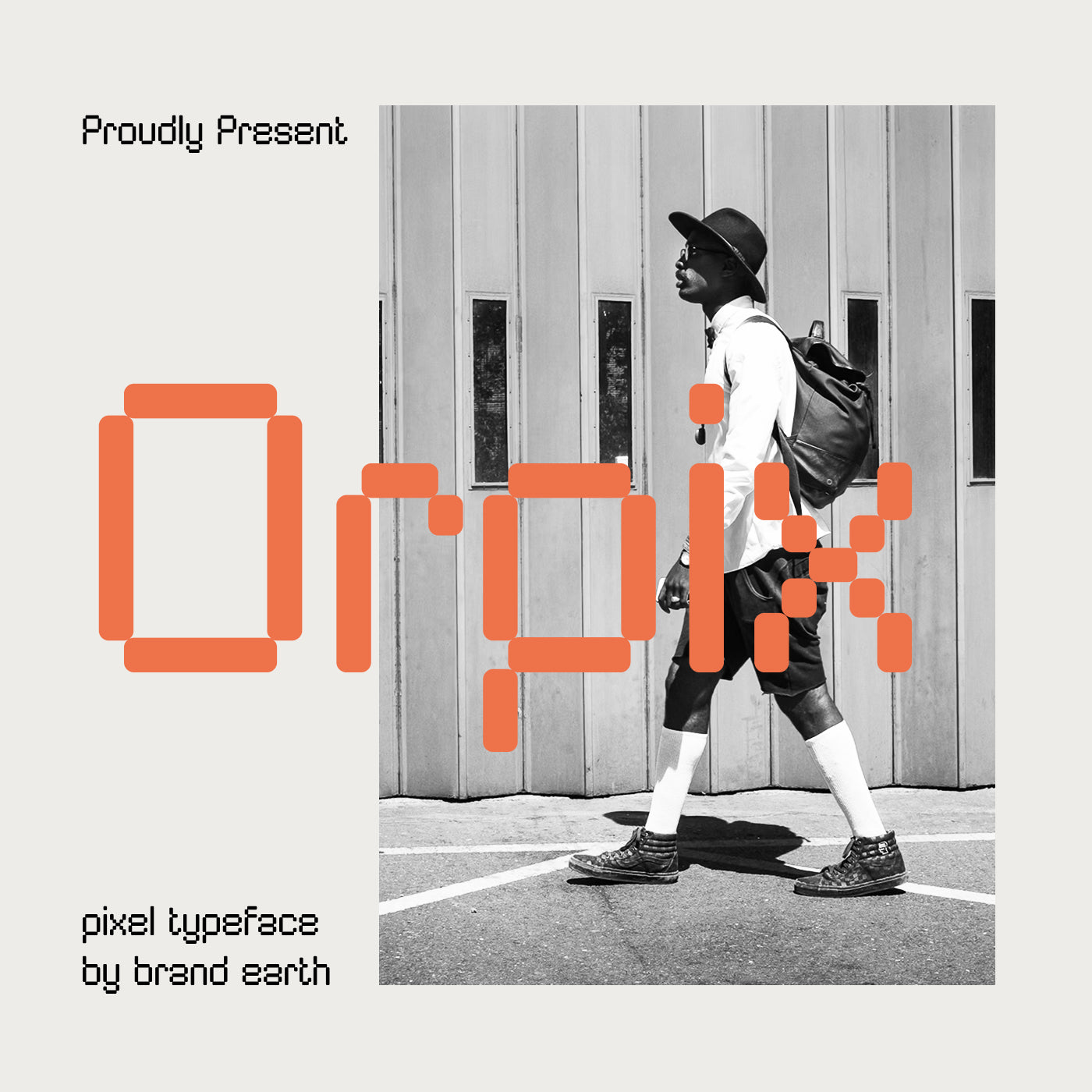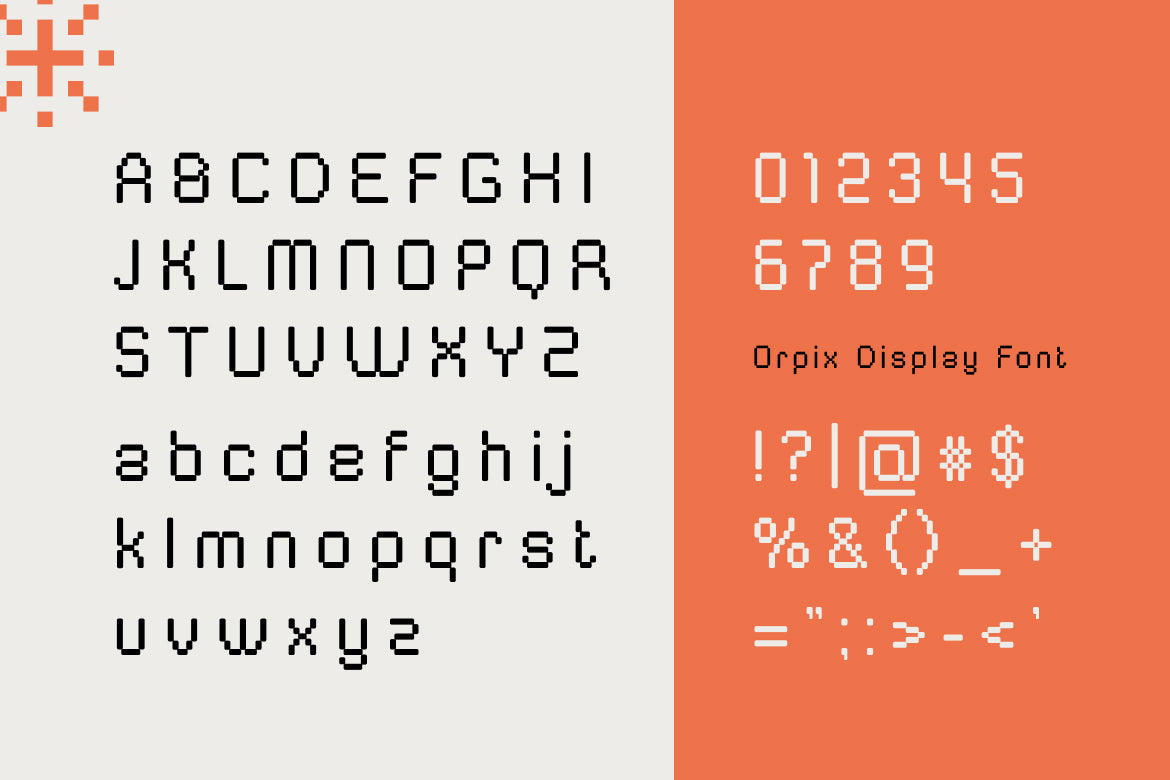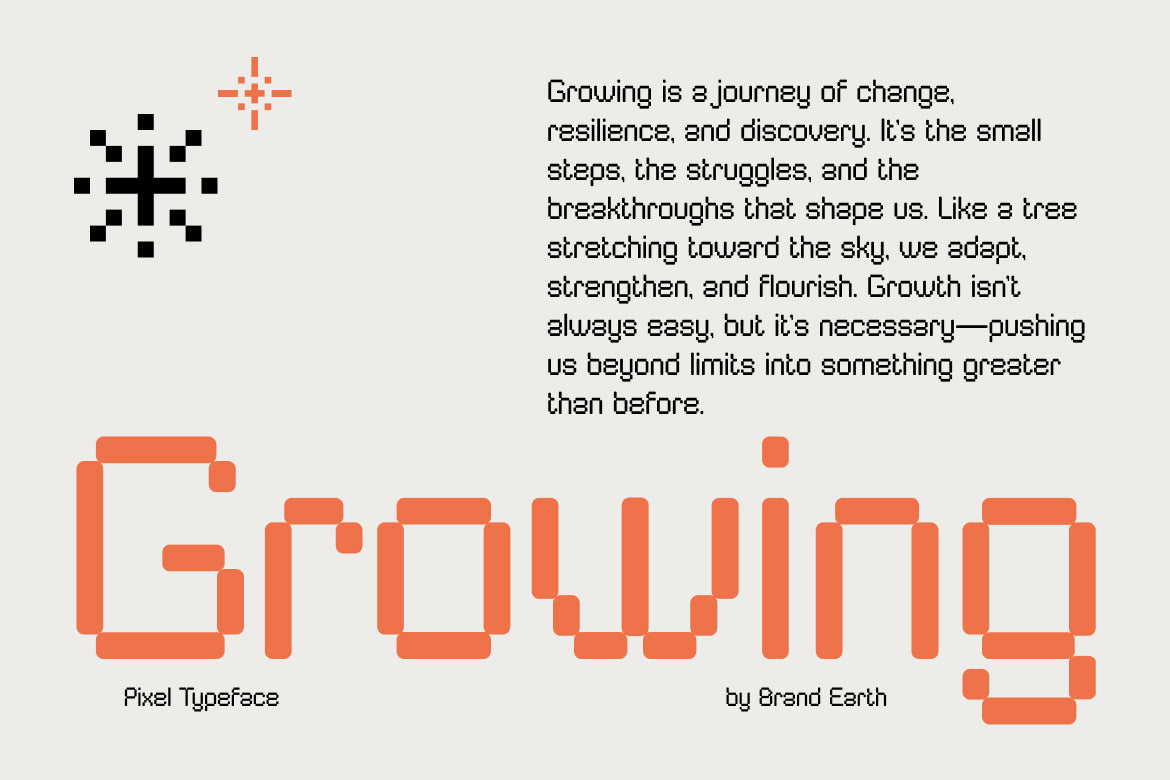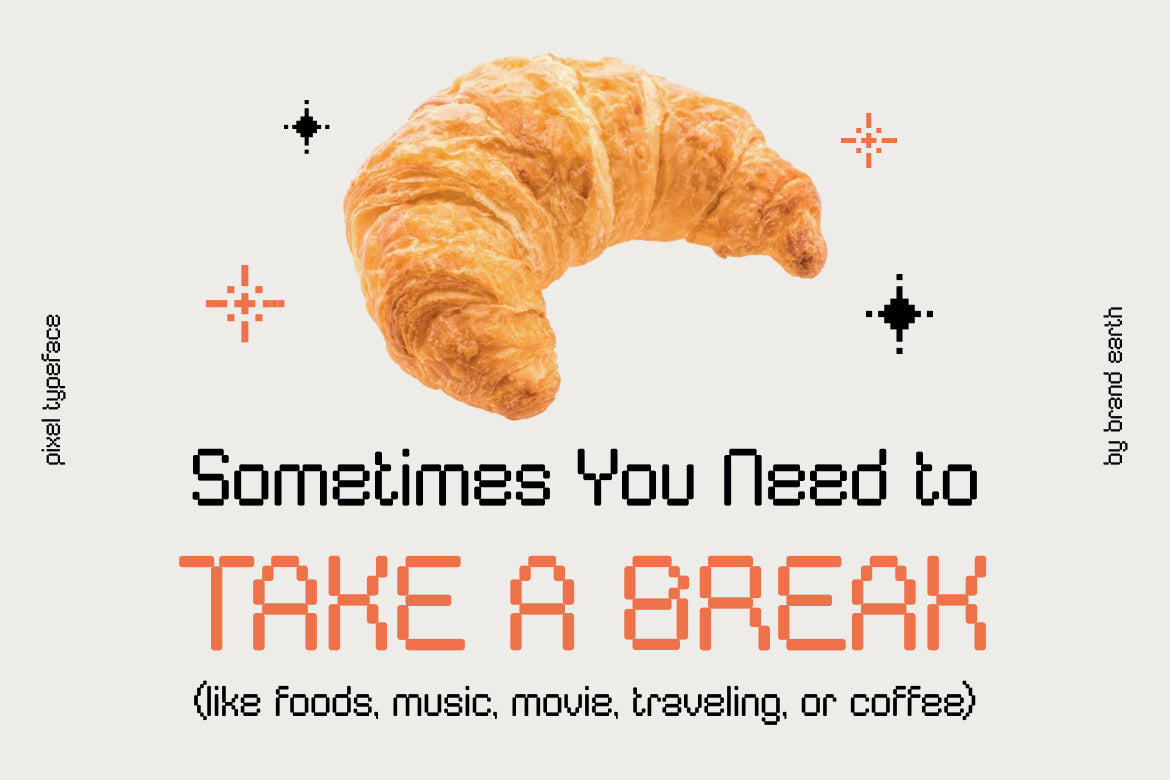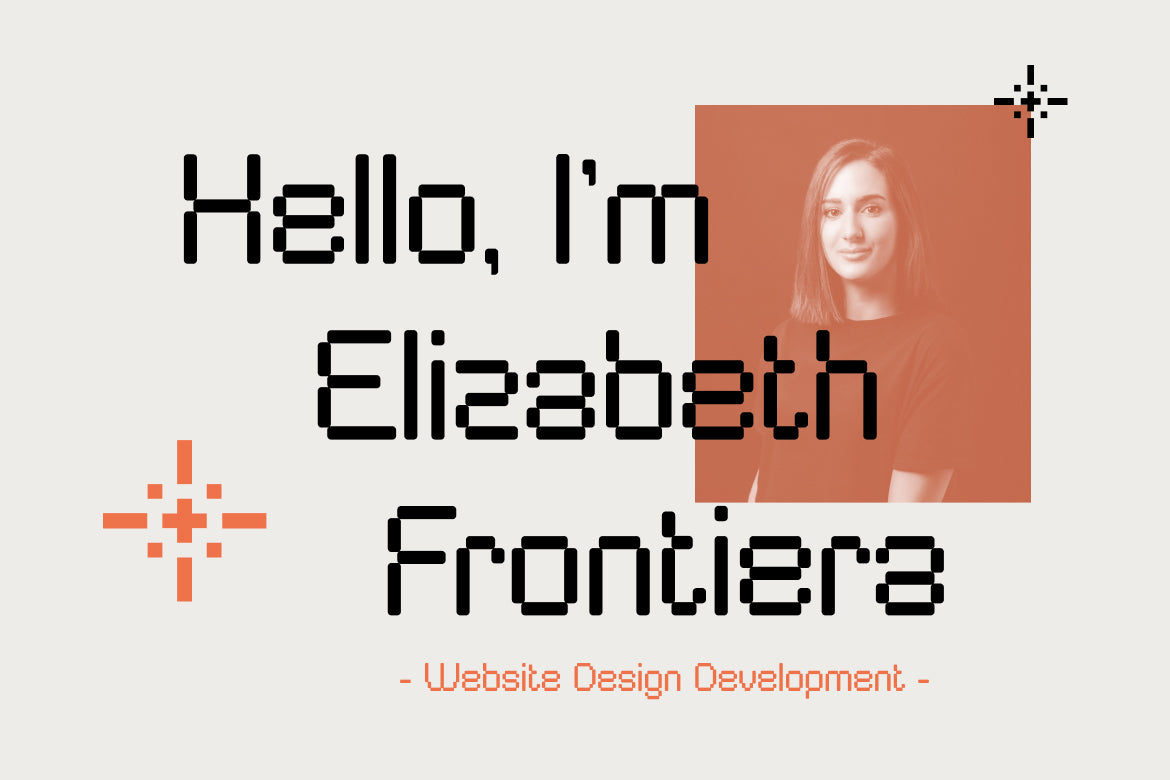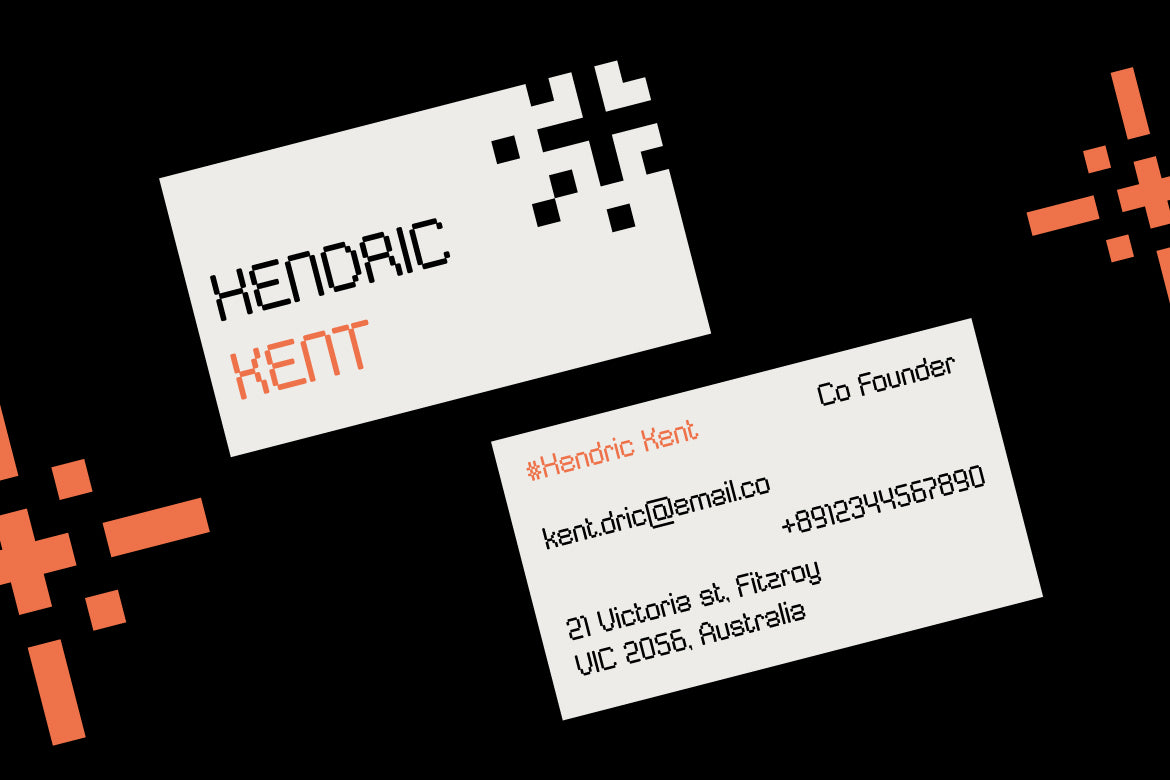
Orpix Pixel Typeface Font
Orpix is a pixel-inspired display typeface that fuses retro gaming nostalgia with a modern modular grid design. This font carries a tech-savvy, digital aesthetic perfect for bold branding and playful digital interfaces. With its rounded square strokes, Orpix feels approachable yet futuristic, making it ideal for technology brands, NFTs, pixel art projects, and experimental editorial layouts.
Its style reflects modular geometry, built with a smooth, consistent stroke that mimics LED or dot-matrix displays but in a friendly, updated way. The font provides uppercase, lowercase, numerals, and symbols with a strong grid-based visual identity, ensuring easy legibility and strong visual impact across platforms.
Orpix is a pixel-inspired display typeface with a modular grid design and rounded square strokes. It includes uppercase and lowercase characters, numerals, and punctuation, and is available in TTF, OTF, and WOFF formats.